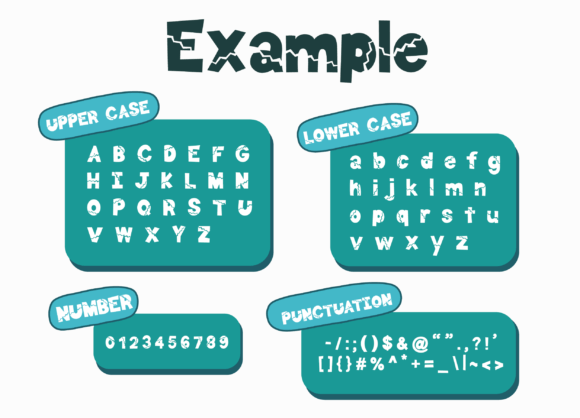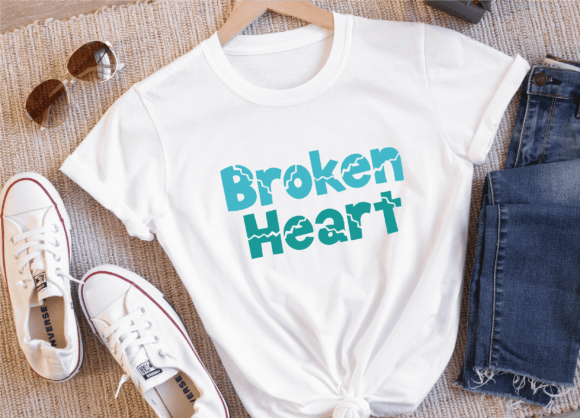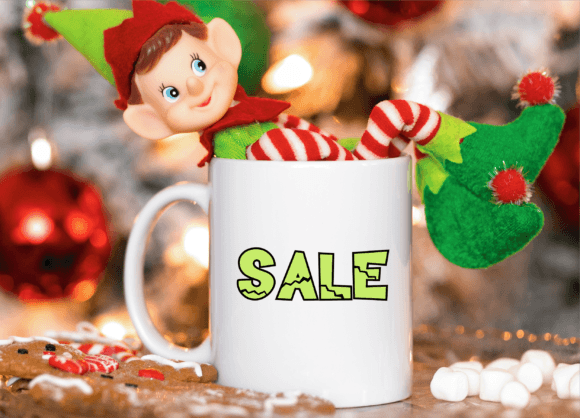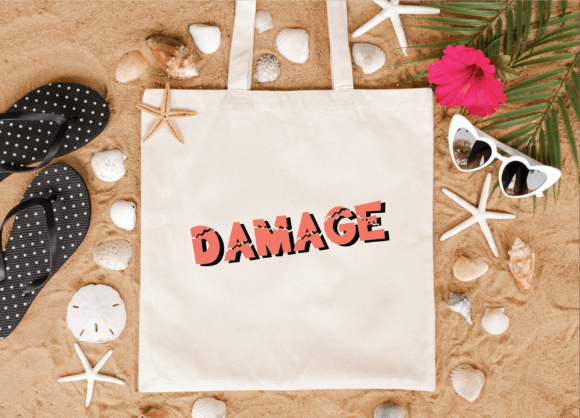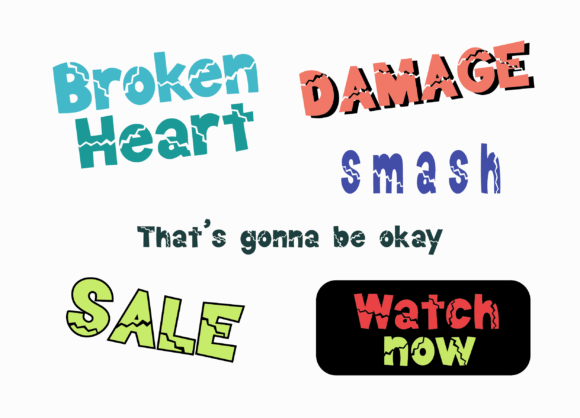
Introducing Bold Crack Font: The Edgy and Stylish Choice for Designers and Crafters
Are you tired of using the same old fonts in your designs? Look no further than the Bold Crack font, a super cool and unique typeface that is sure to make your words pop out and catch everyone’s attention. This font is designed to resemble cracked glass or stone, giving it a tough and edgy look that is perfect for designers and crafters who want to add a little excitement to their work.
The Inspiration Behind Bold Crack Font
The Bold Crack font is inspired by the idea of letters being like little pieces of glass that got cracked but still stayed bold and strong. Imagine if the letters in your designs were made of glass that had been broken, but instead of shattering into a million pieces, they remained intact with jagged lines and sharp edges. This font captures that idea perfectly, giving your text a fun and stylish look that is sure to stand out.
Characteristics of Bold Crack Font
The Bold Crack font has several characteristics that make it a great choice for designers and crafters. Some of its key features include:
- Jagged lines and sharp edges: The font’s jagged lines and sharp edges give it a tough and edgy look that is perfect for designs that need to stand out.
- Cracked glass or stone texture: The font’s texture resembles cracked glass or stone, adding a unique and interesting element to your designs.
- Bold and strong: Despite its cracked appearance, the font remains bold and strong, making it perfect for use in headlines, titles, and other applications where you want to make a statement.
Uses for Bold Crack Font
The Bold Crack font is a versatile typeface that can be used in a variety of applications, including:
- Headlines and titles: The font’s bold and edgy look makes it perfect for use in headlines and titles, where you want to grab the reader’s attention.
- Logos and branding: The font’s unique texture and jagged lines make it a great choice for logos and branding, where you want to stand out from the crowd.
- Posters and flyers: The font’s bold and attention-grabbing look makes it perfect for use in posters and flyers, where you want to make a statement.
- Social media graphics: The font’s edgy and stylish look makes it a great choice for social media graphics, where you want to stand out from the crowd.
Tips for Using Bold Crack Font
Here are a few tips for using the Bold Crack font in your designs:
- Use it sparingly: The font’s bold and edgy look can be overwhelming if used too much. Use it sparingly to add emphasis to your text.
- Pair it with a simple font: The font’s unique texture and jagged lines can be distracting if paired with another bold or edgy font. Pair it with a simple font to create contrast.
- Experiment with colors: The font’s texture and jagged lines can be highlighted or hidden depending on the color you use. Experiment with different colors to find the one that works best for your design.
The Bold Crack font is a unique and stylish typeface that is sure to add a little excitement to your designs. Its jagged lines and sharp edges give it a tough and edgy look that is perfect for designers and crafters who want to stand out from the crowd. With its versatility and attention-grabbing look, the Bold Crack font is a great choice for a wide range of applications, from headlines and titles to logos and branding. So why not give it a try and see how it can add a little edge to your designs?